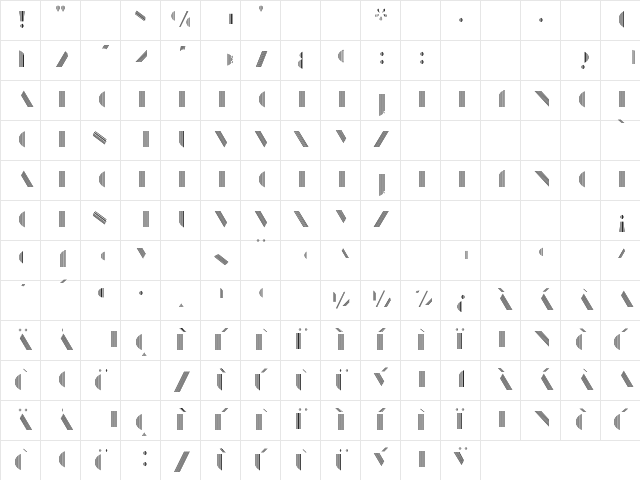
Manbow Stripe
Design Context for Manbow Typeface
Manbow is a composed and adaptable typeface that performs quietly and consistently across a wide range of design contexts.